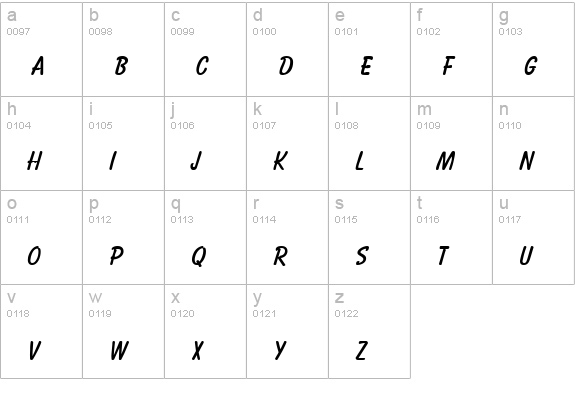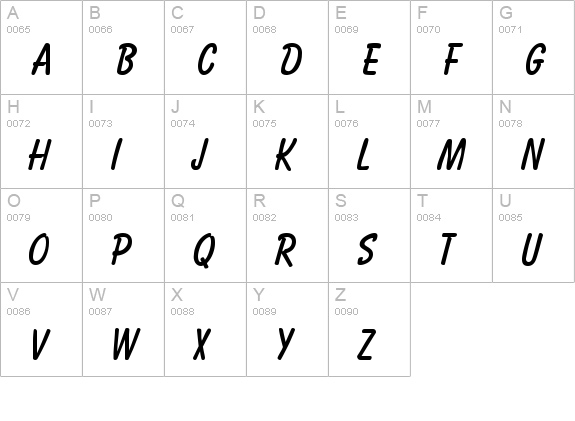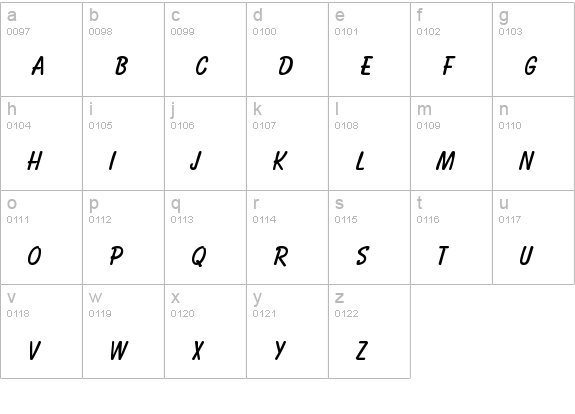
Bassett Normal is the standard, neutral variant in the Bassett typeface family \xE2\x80\x94 well suited to general body text, paragraphs, and standard typographic work.
Bassett Normal font is a versatile and timeless typeface that exudes elegance and sophistication. With its clean lines and classic design, this font is perfect for a wide range of projects, from branding and advertising to editorial and web design. Its sleek and modern aesthetic makes it a popular choice for designers looking to add a touch of sophistication to their work. Best of all, Bassett Normal font is completely free to download at FontsMarket.com. Whether you're a seasoned designer or just starting out, this font is a valuable addition to your collection. Don't miss out on the opportunity to elevate your designs with the timeless beauty of Bassett Normal font. Download it today and start creating stunning visuals that will leave a lasting impression.